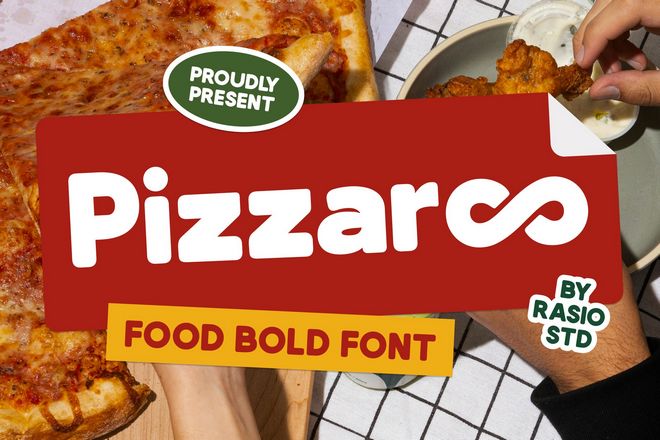
Pizzaroo – Food & Pizza Font
Pizzaroo is a charming and bold font, perfect for bringing a fun, food-themed flair to your pizza branding design. With its chunky curves and laid-back style, it’s excellent for restaurant branding, kids’ menus, and food packaging. The font is available in TTF, OTF, and WOFF formats.
Food Lover – Playful Food Font
Food Lover is a lively retro-inspired font that adds a touch of joy and warmth to any design. With its bold, curvy letterforms, it’s a great choice for projects requiring a fun and inviting feel, such as restaurant branding, menu design, or catchy logos. Equally fitting for beach and tropical-themed designs, this vintage yet modern font, offered in OTF, TTF, and WOFF formats.
Bread Crumbs – Delicious Food Font
Bread Crumbs is a delightfully unique, hand-lettered font. This enticing addition to your project adds a ‘tasty’ touch that is sure to capture attention and make your work stand out. Use Bread Crumbs to give your creation that extra flavor of artistry and creativity.
Food Craft – Creative Decorative Font
This is a unique and fun food font, tailor-made for your culinary needs. Ideal for spicing up titles, logos, or branding and signage for restaurants, cafes, and bars, it’s a simple yet effective way to enhance your design aesthetics.
Original – Burger Font
Original Burger is a fun and handmade typeface ideal for burger shop branding designs. This creative font includes not only uppercase letters and numbers, but also various punctuation marks to add charm to your projects. Plus, it provides graphic doodle elements for a more unique and delightful display.
Cheesy Burger – Handwritten Bold Font
A handcrafted bold typeface, full of playful, energetic character, perfect for giving your food projects a dynamic and welcoming feel. With a vibe inspired by the lightheartedness of food branding, this font is great for restaurant logos, food packaging, and social media branding.
Magic Burger – Free Food Font